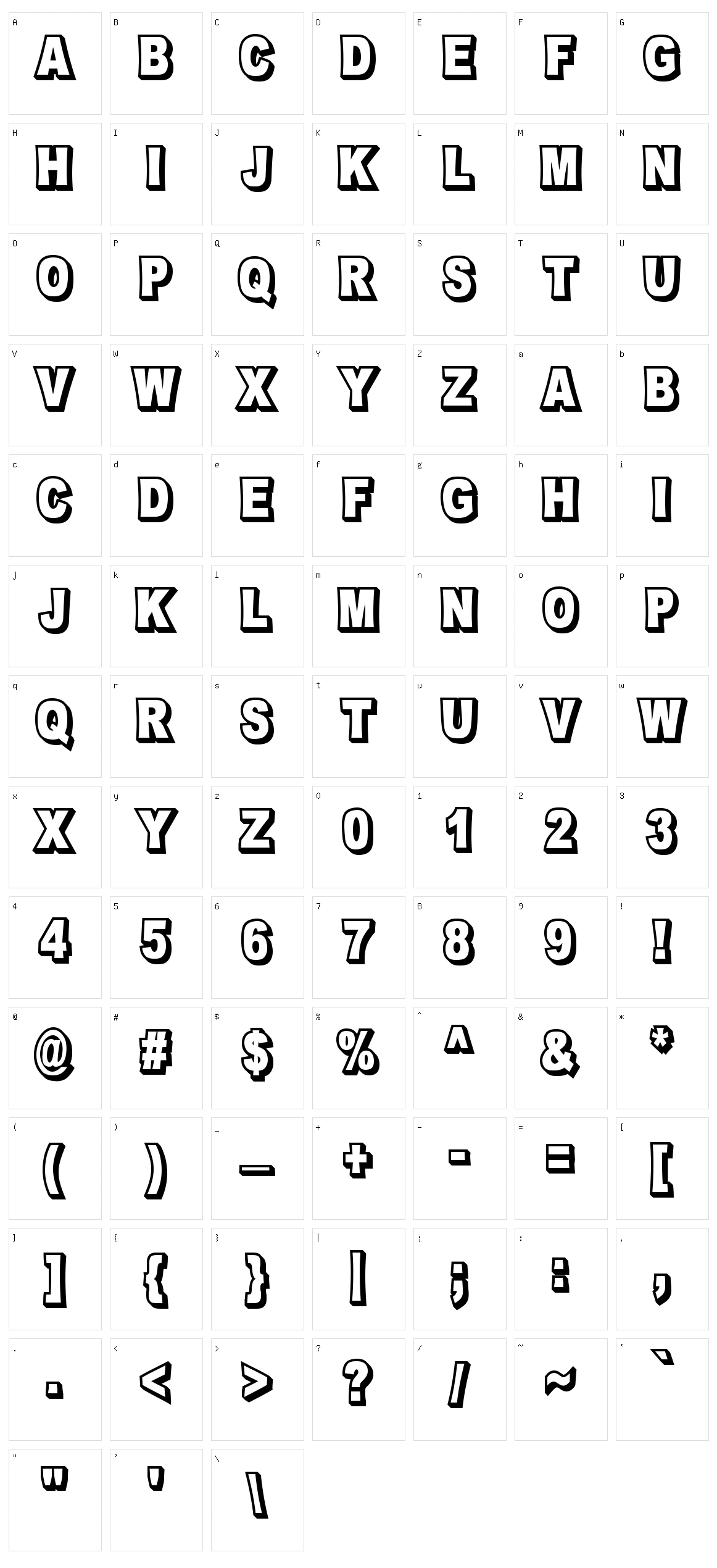
The free font Omniblack is carefully designed by Studio Typo, showcasing a thoughtful balance of creativity and usability and falls under the Sans serif font style. When you download the ZIP file, it contains only 500.81 KB of font files, making it lightweight and quick to download. Please review the license details below to understand permitted usage and distribution rights. If license information is not available, we recommend using this font for personal projects only or contacting the author directly for commercial usage permissions.